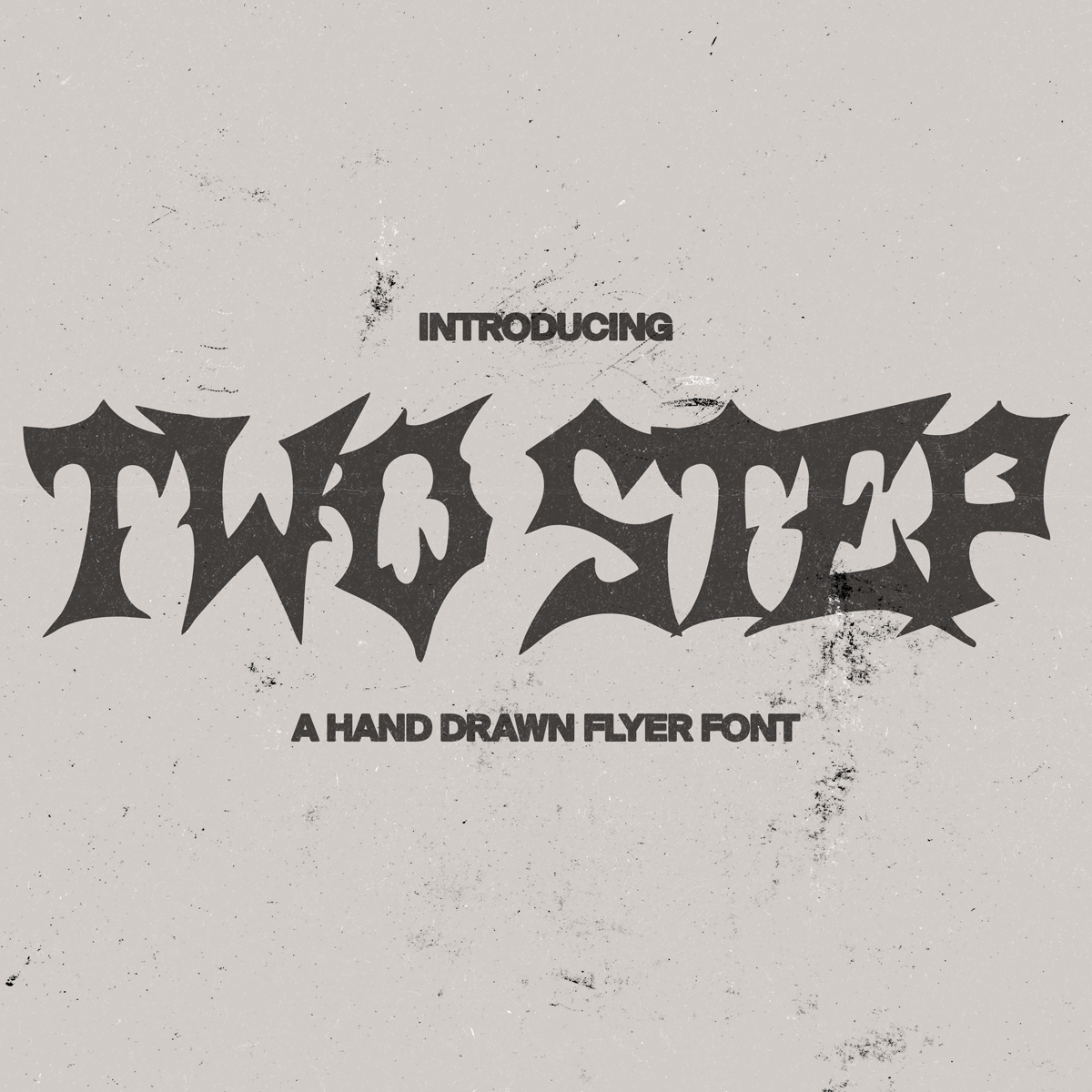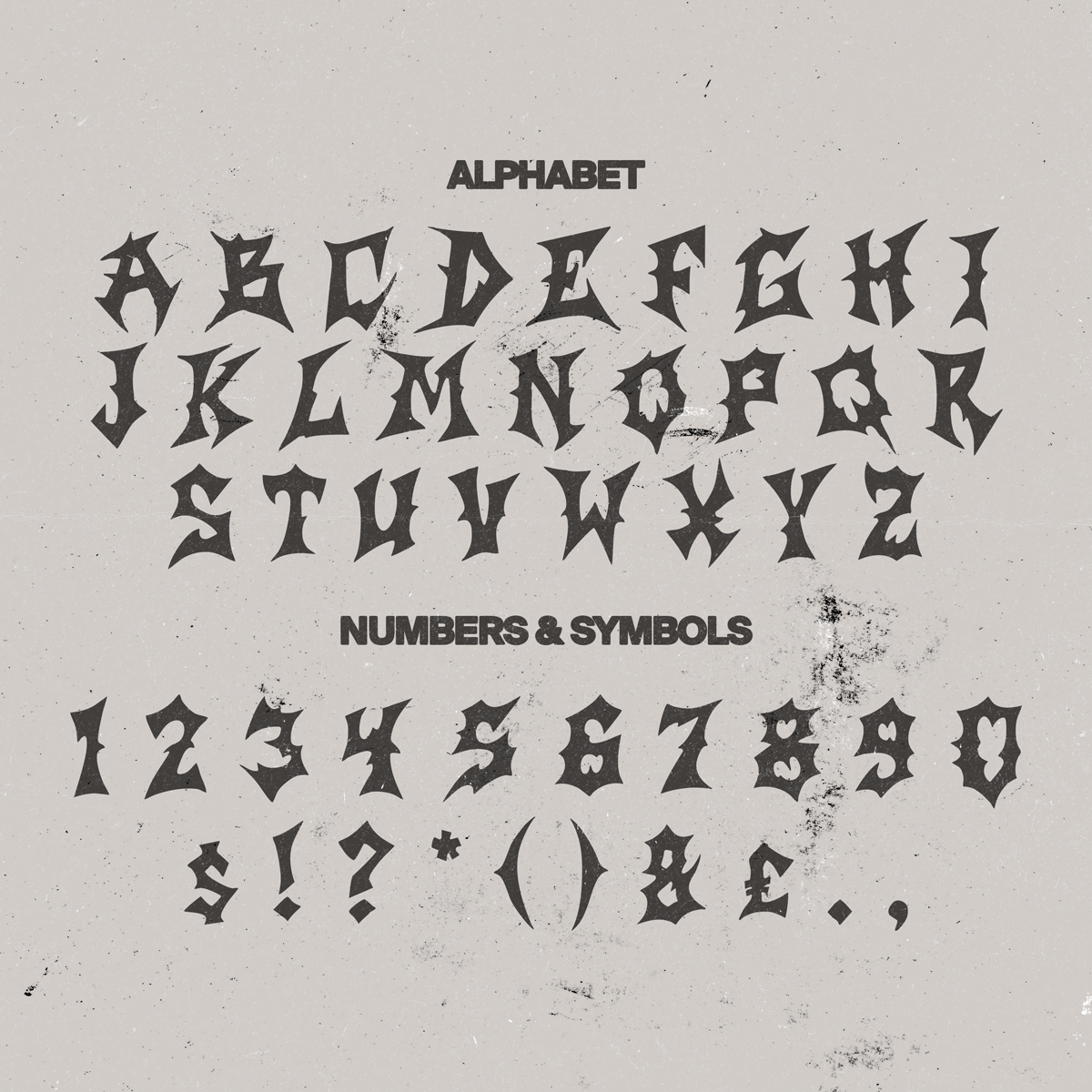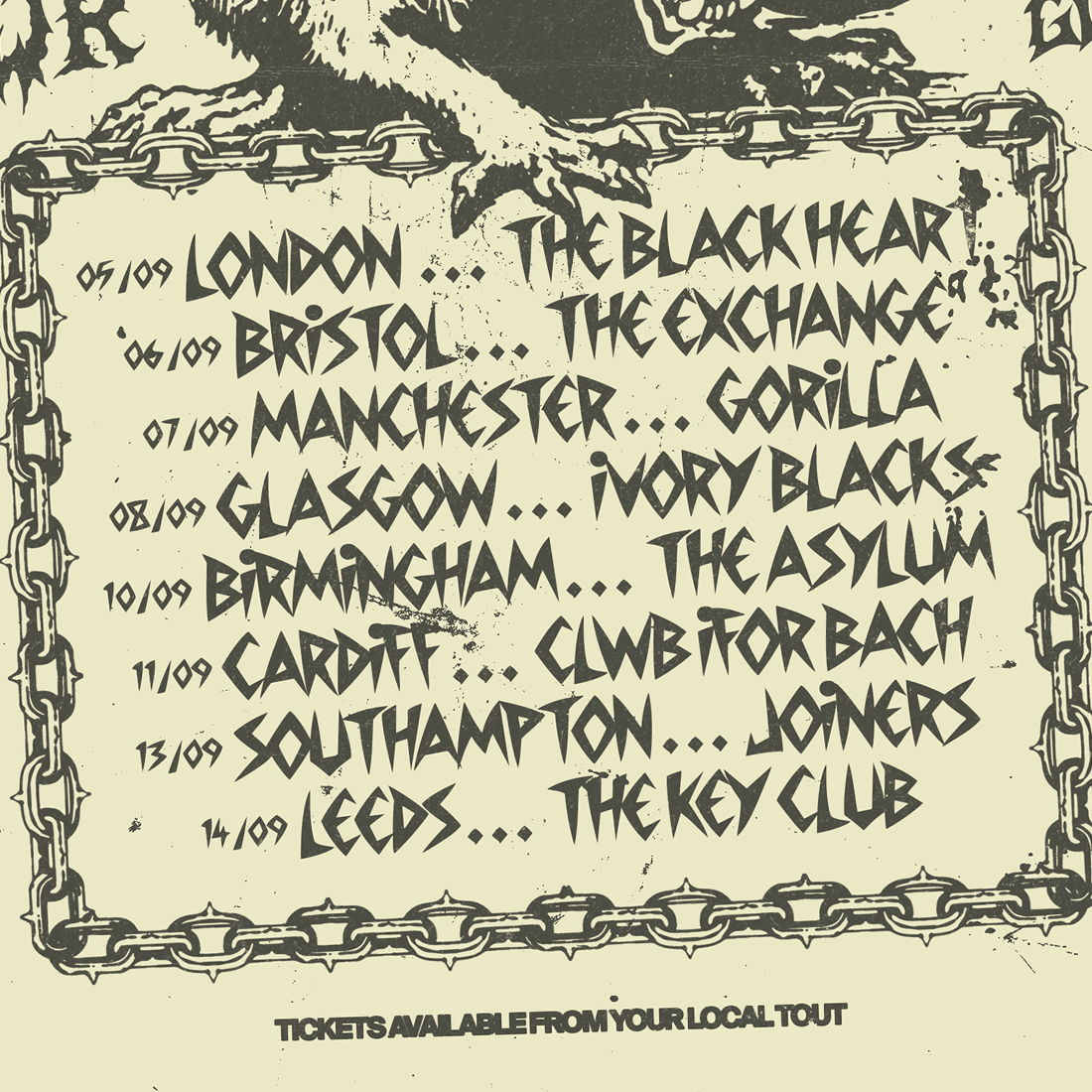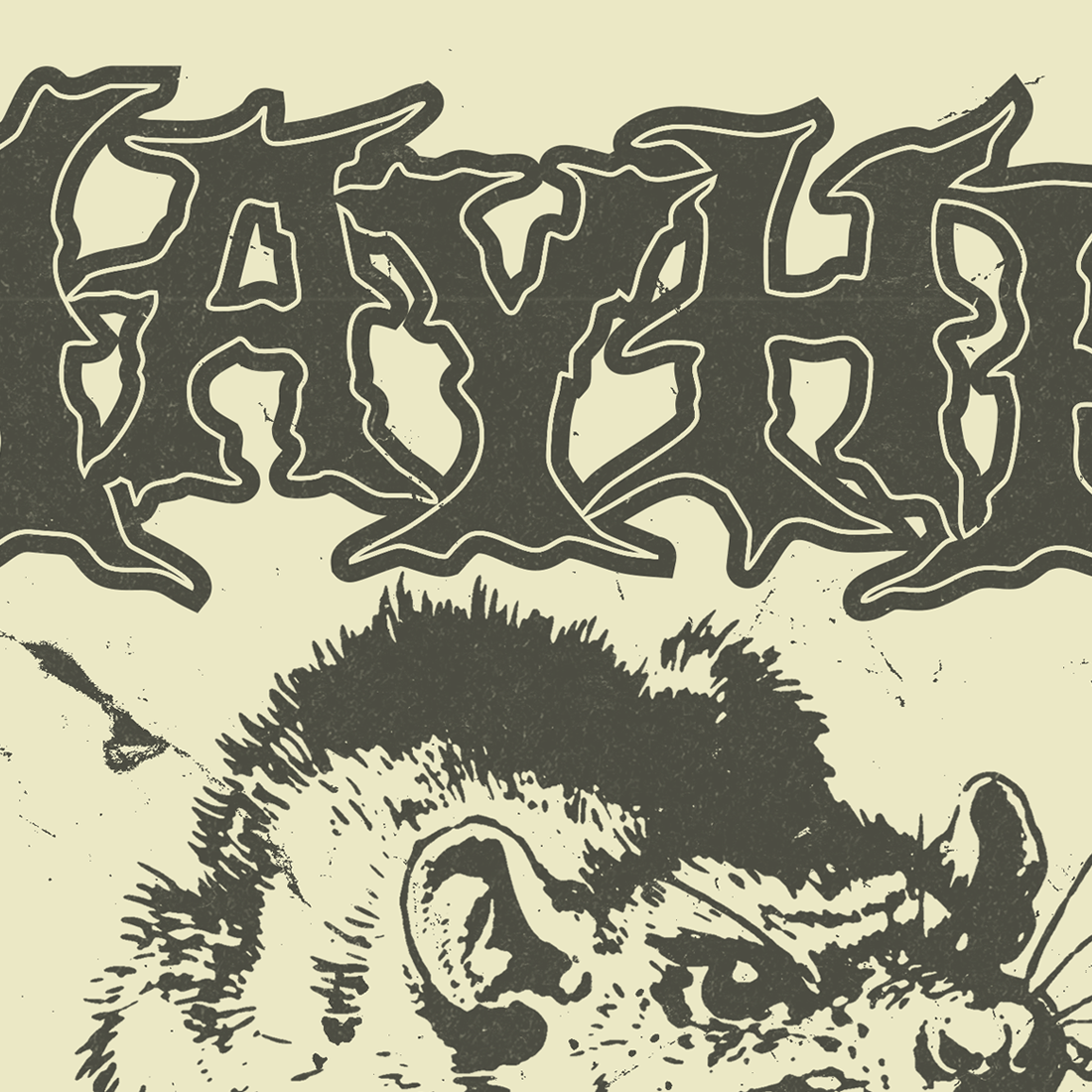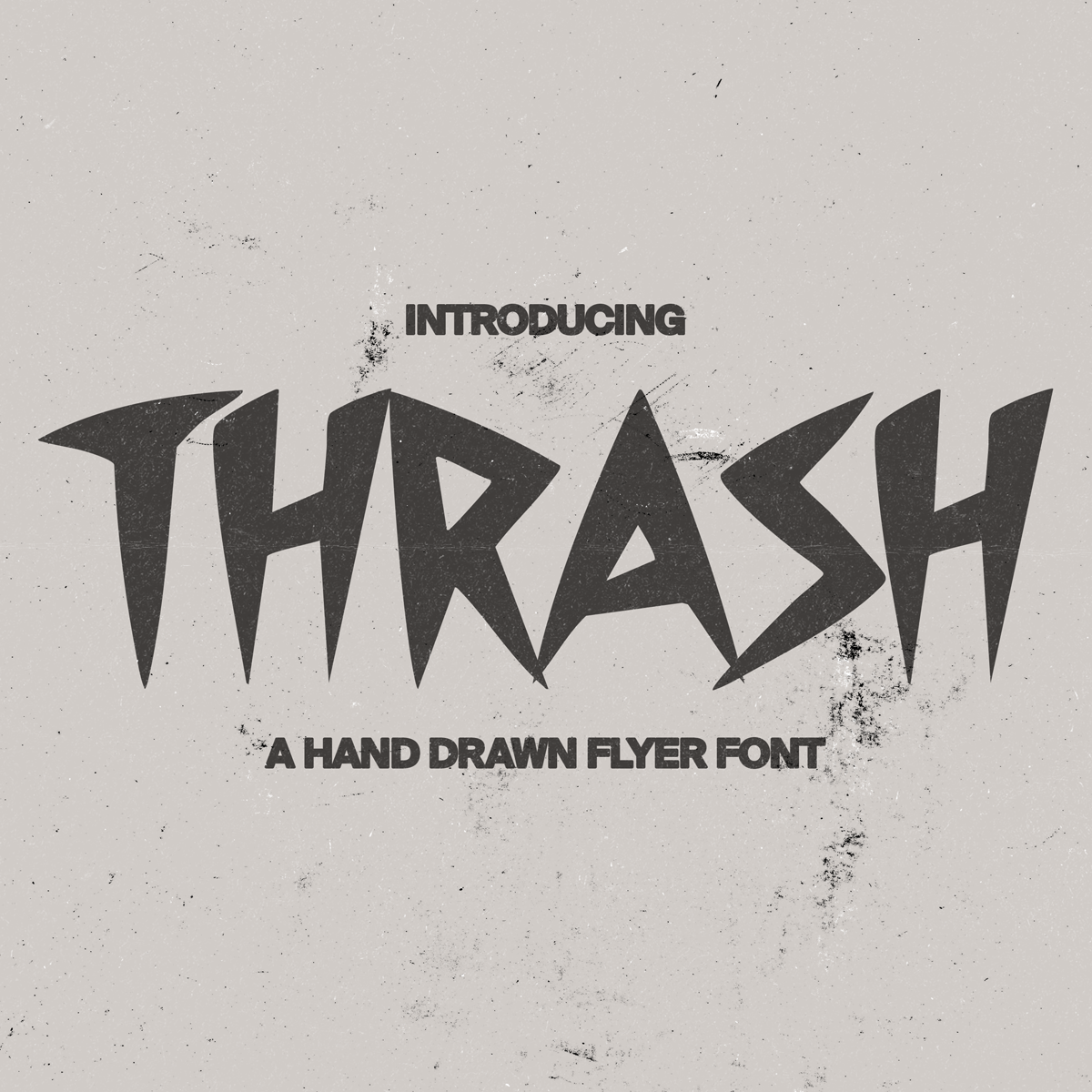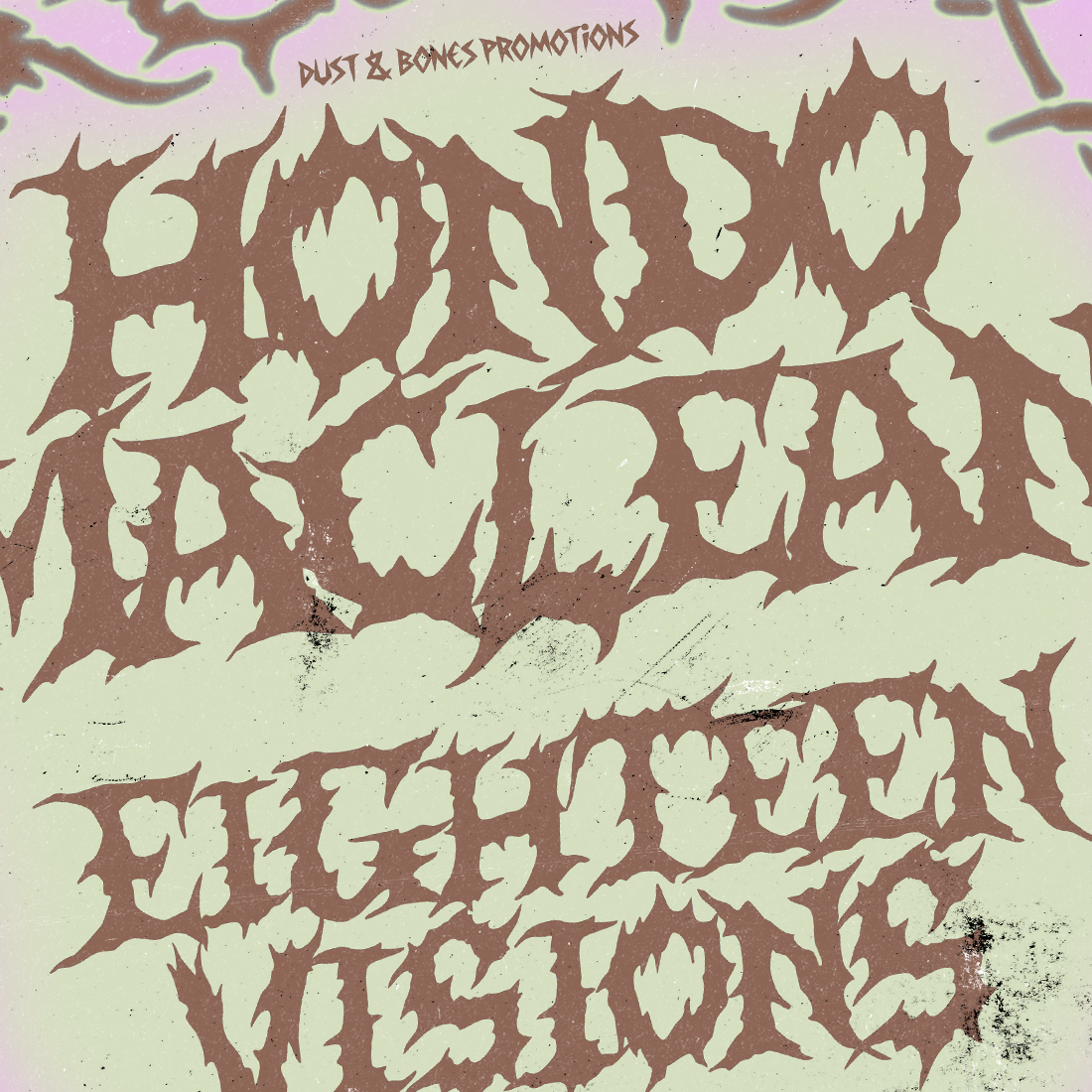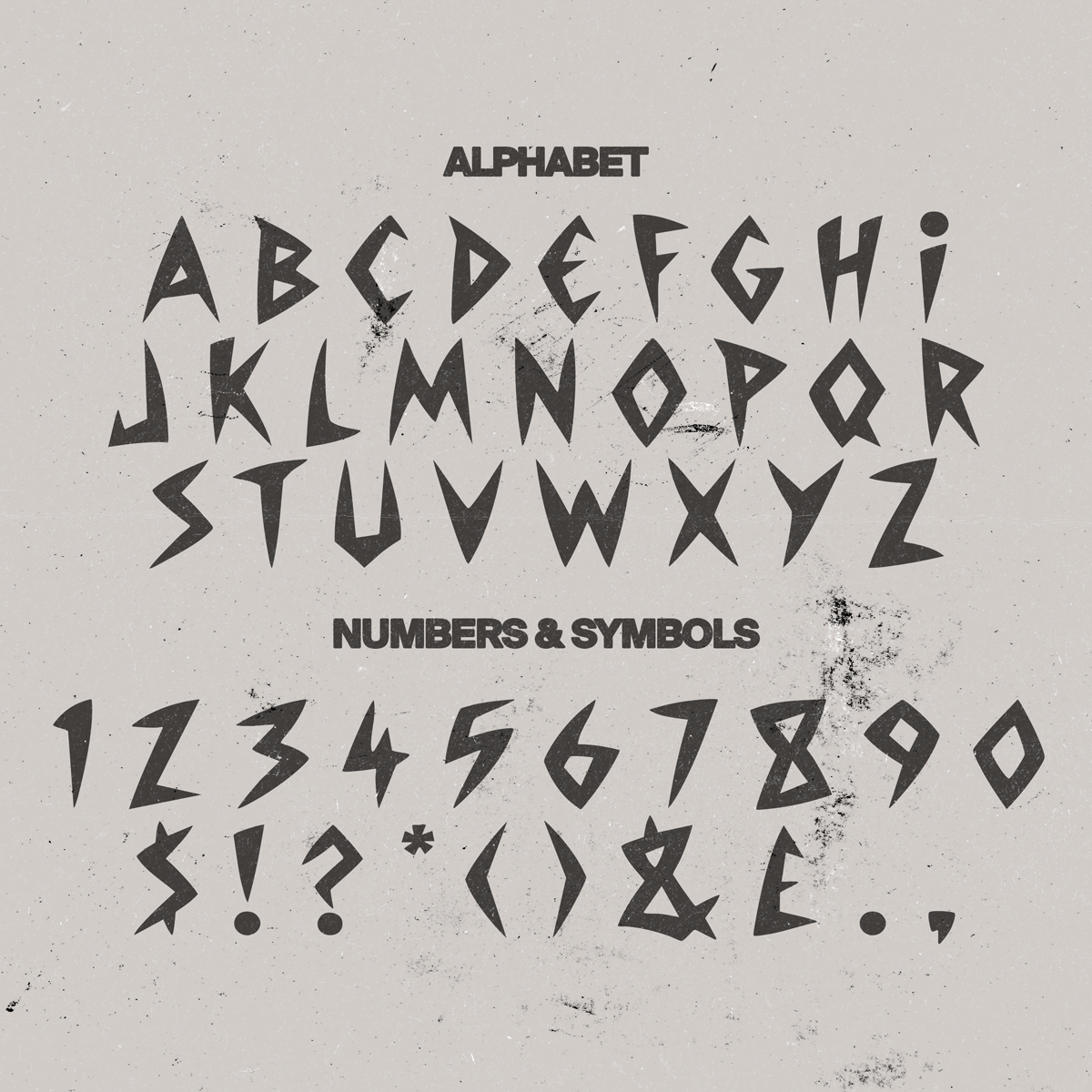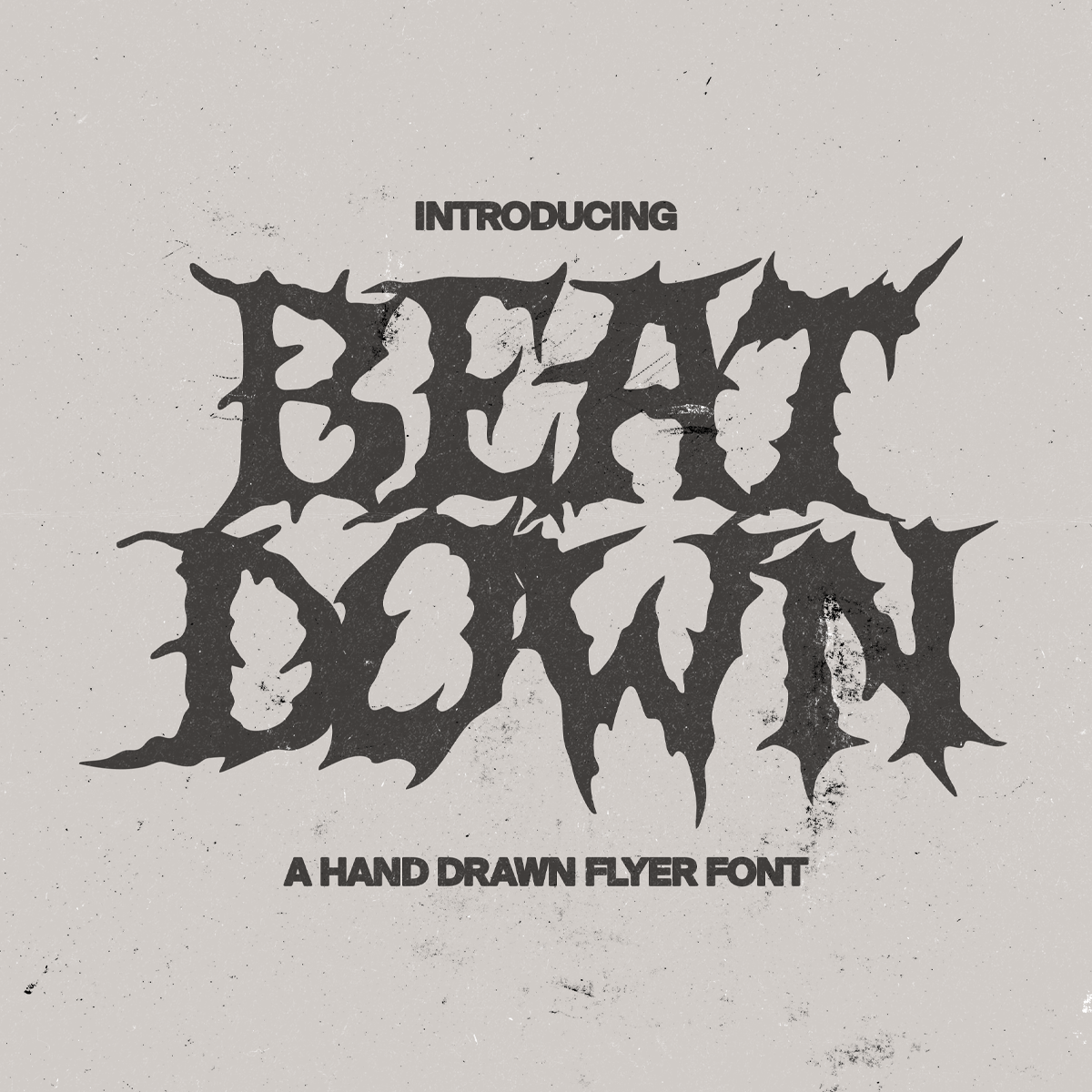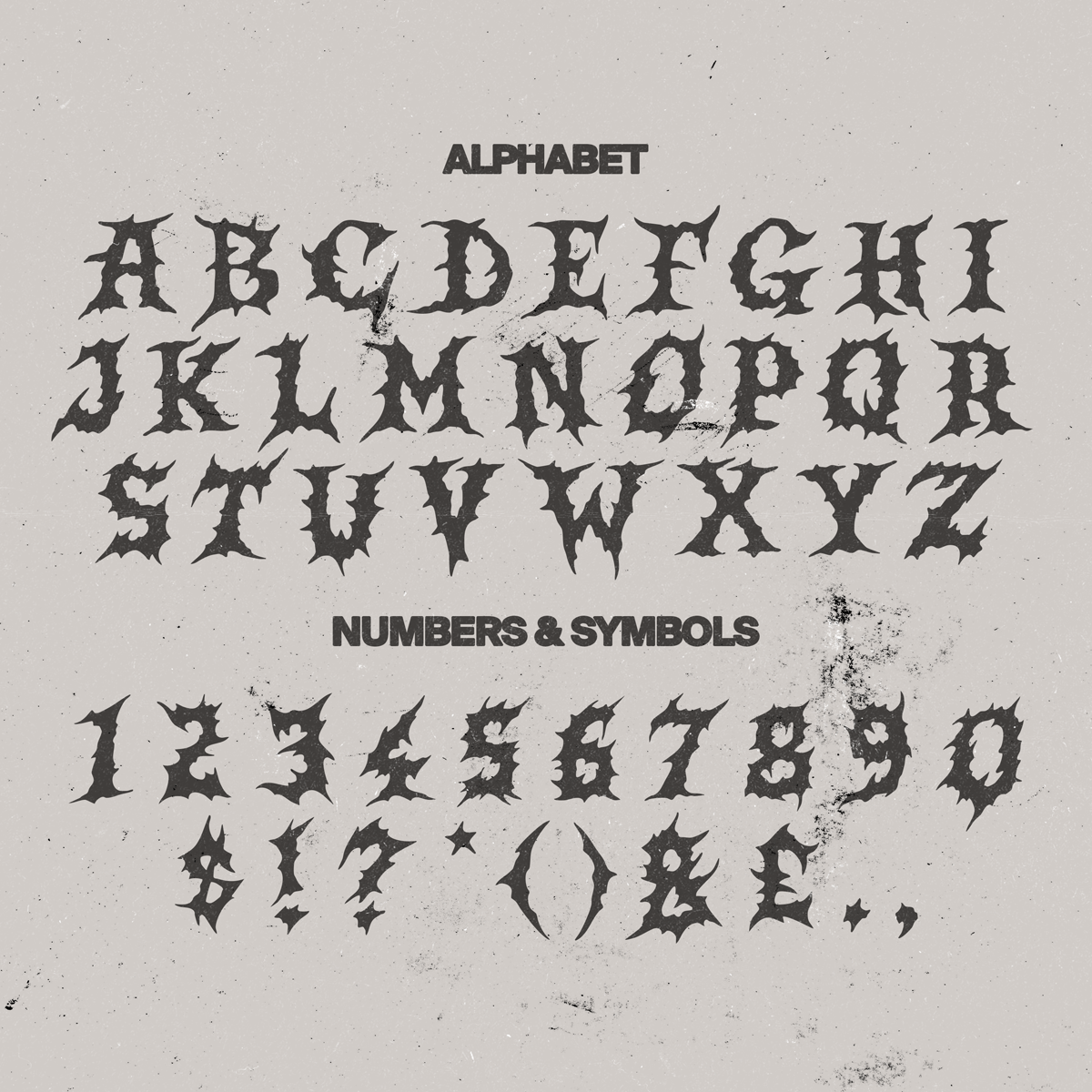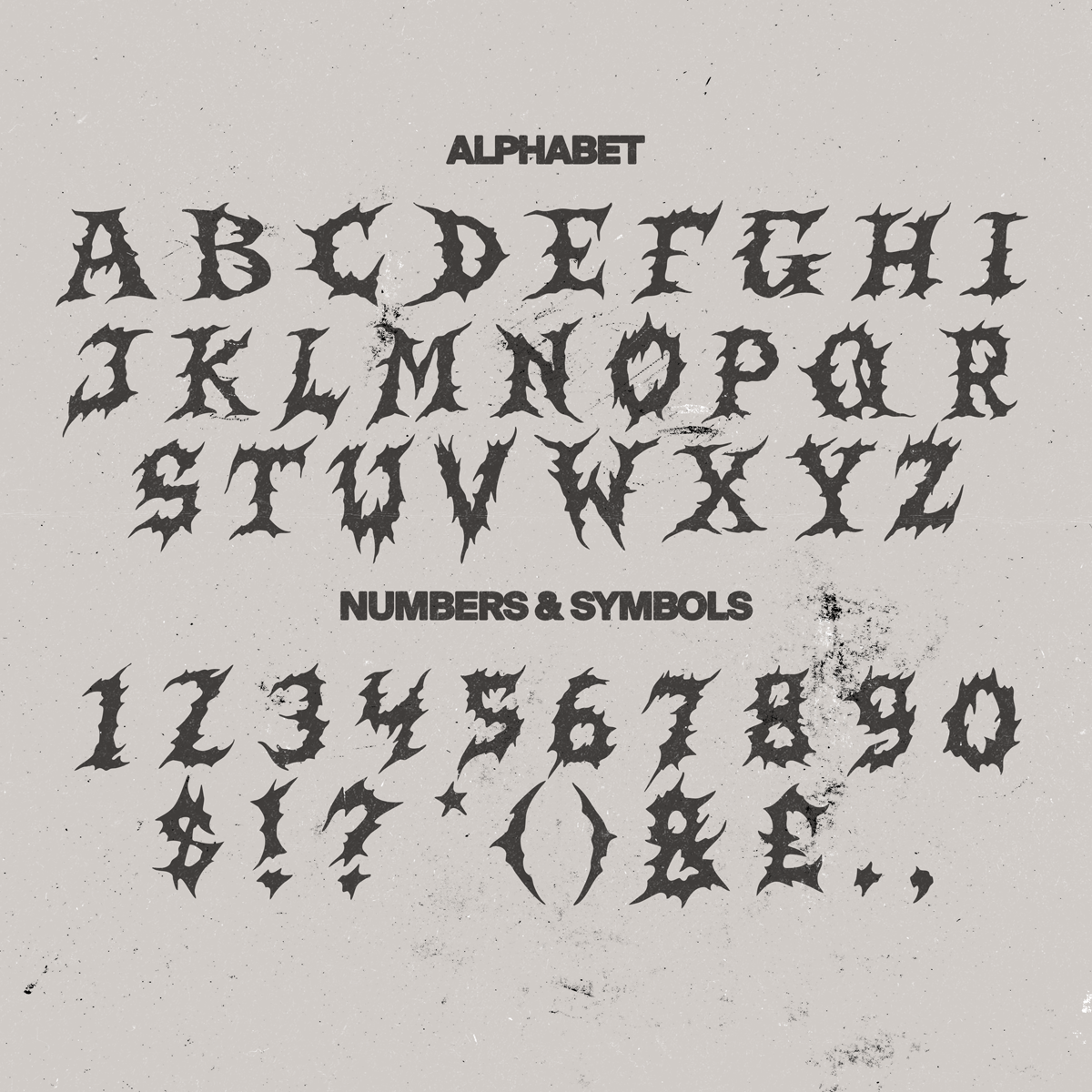
“Flyer Fonts Bundle” includes 4 of my unique hand-drawn fonts!This collection of hand-drawn fonts are inspired by old school hardcore show flyers. Perfect for grunge artwork, flyers, logos and much more.